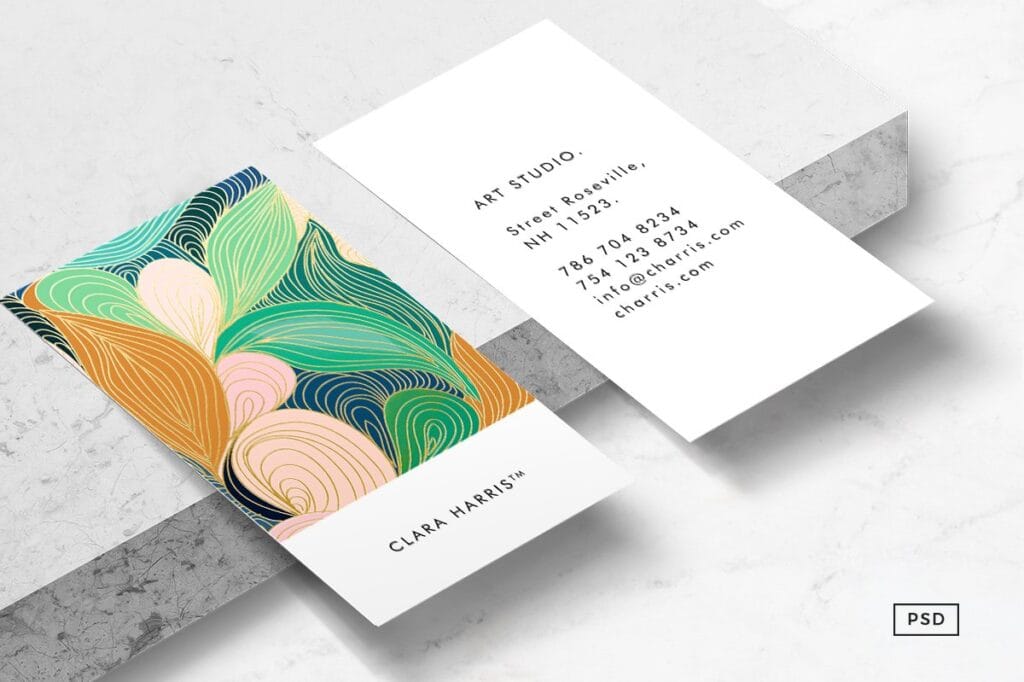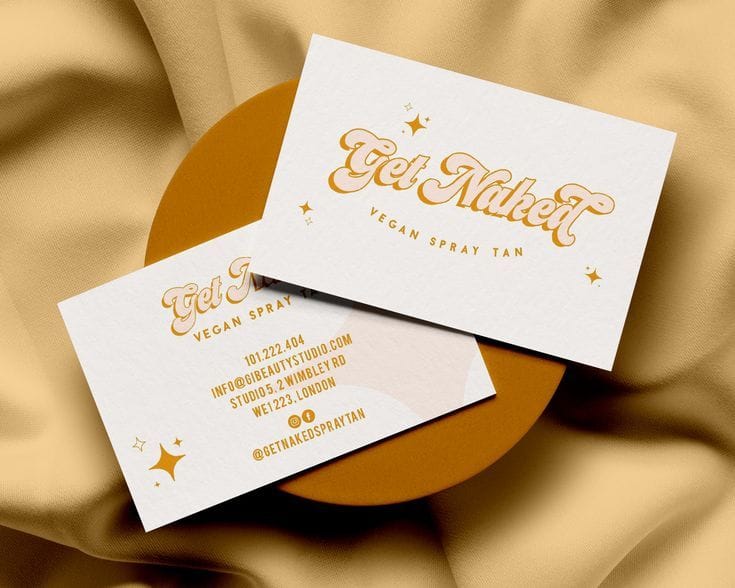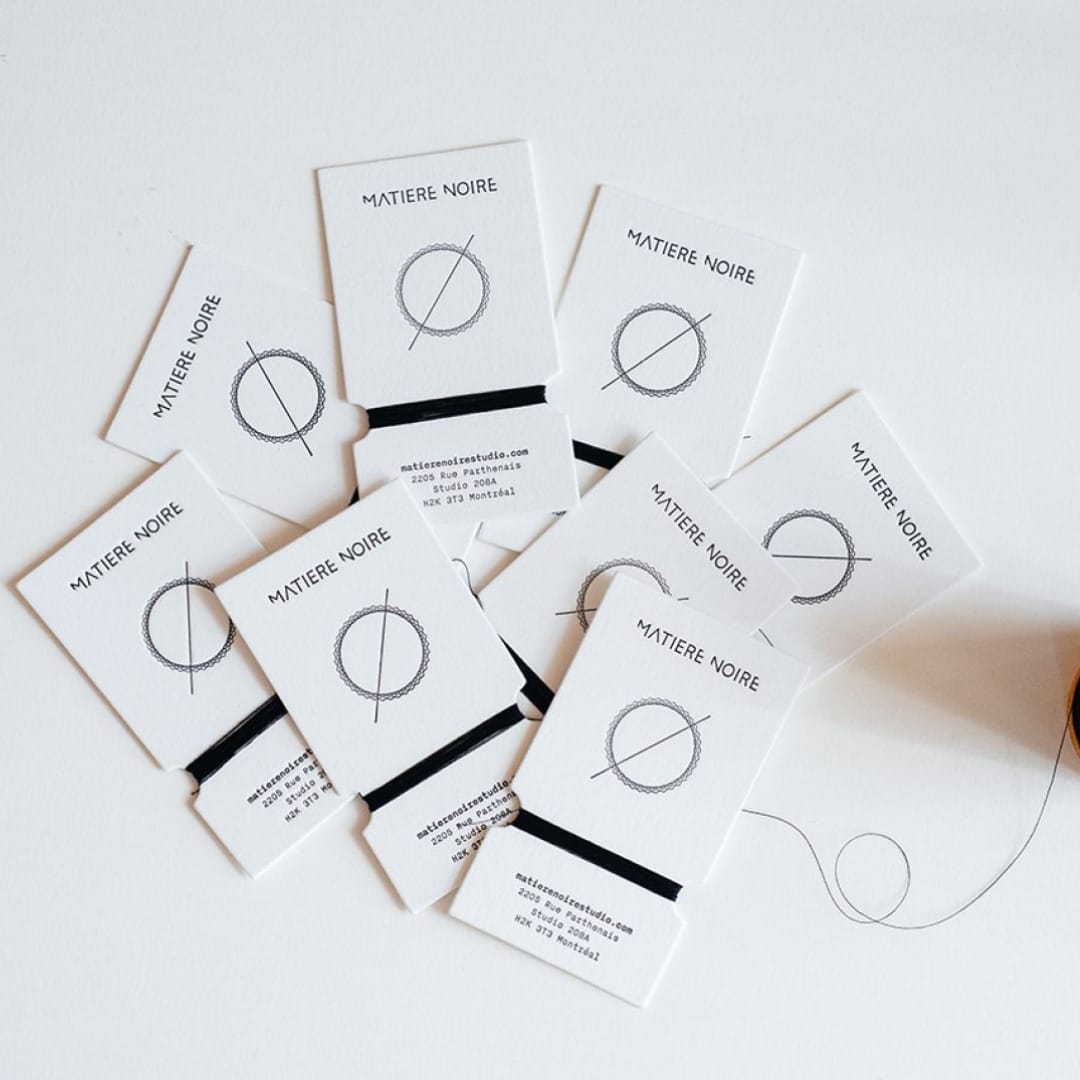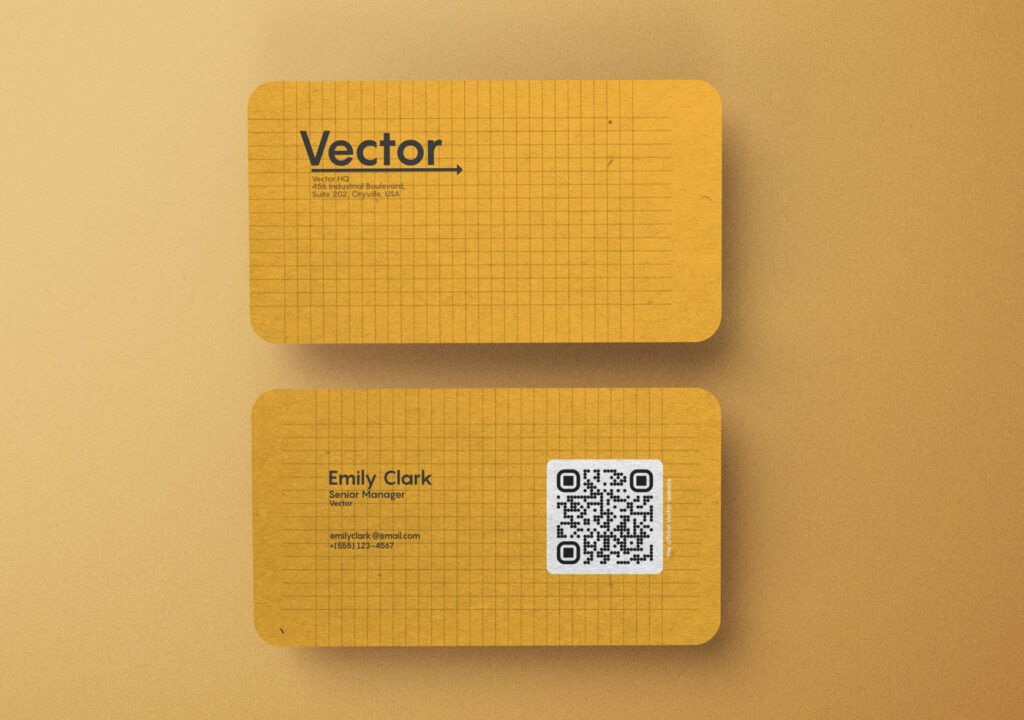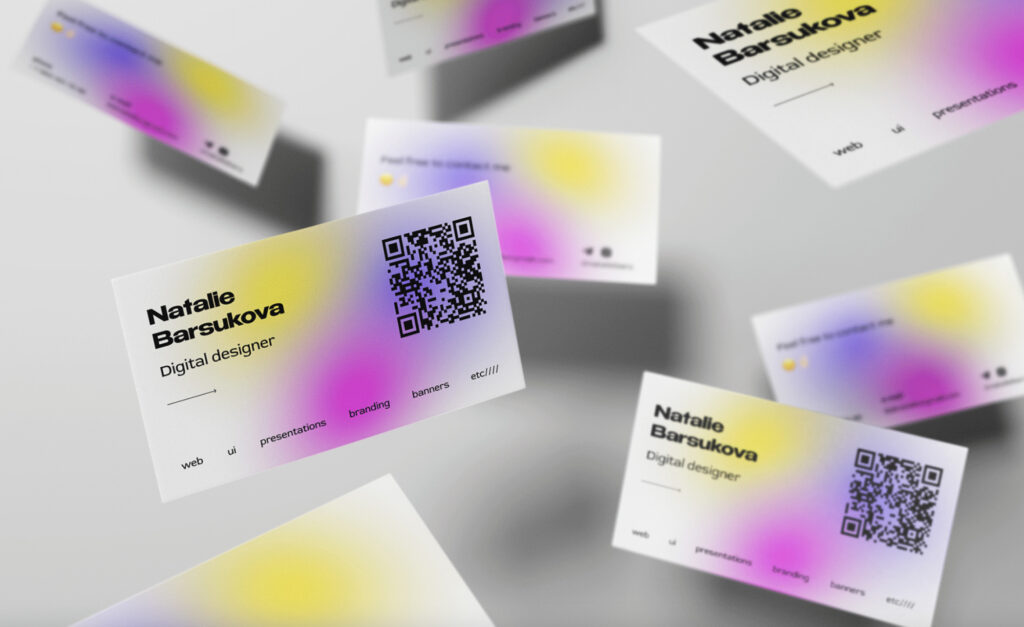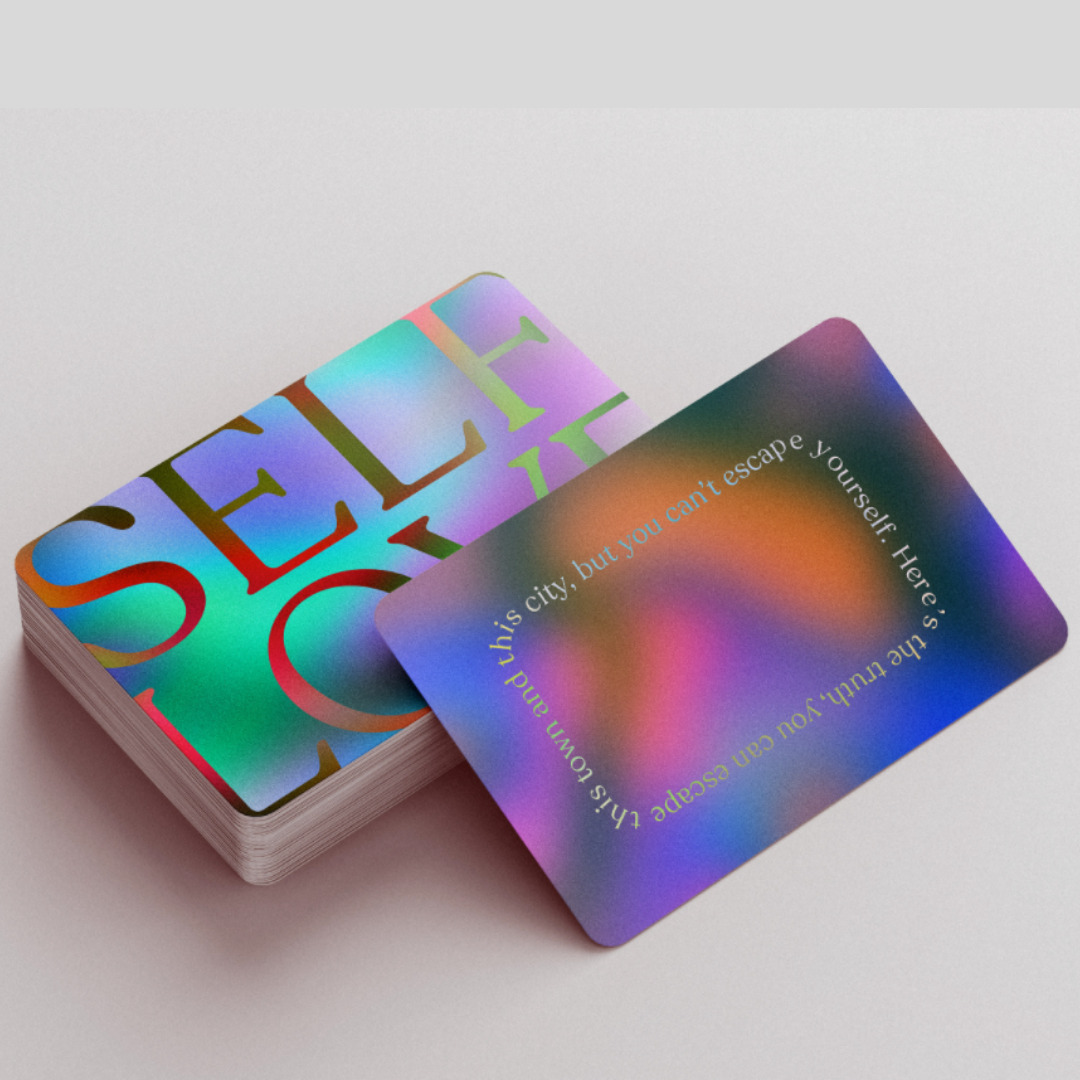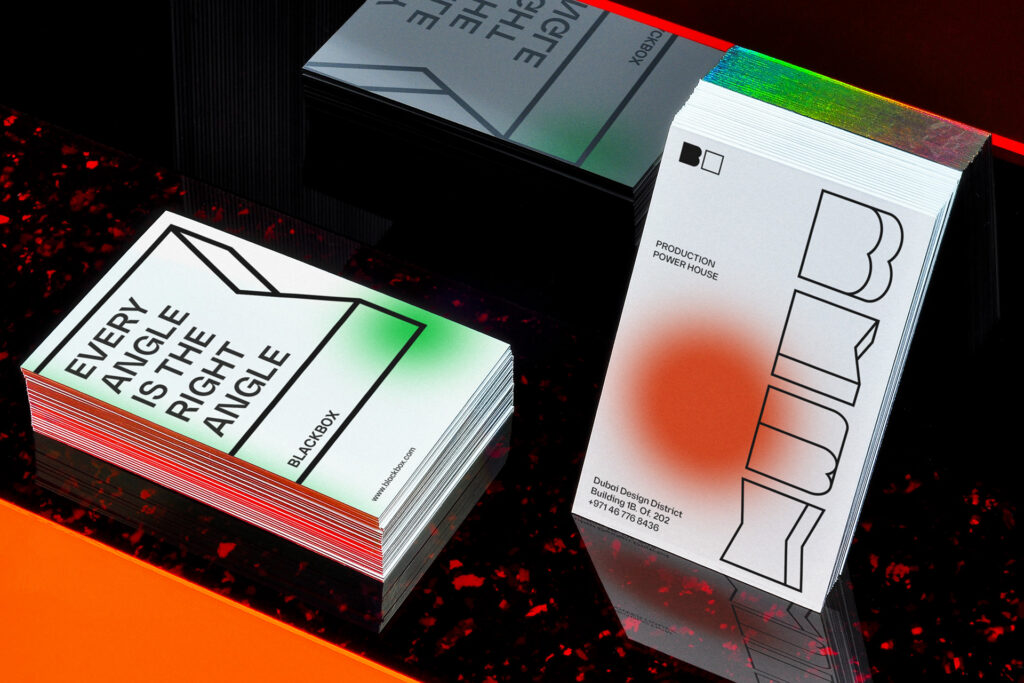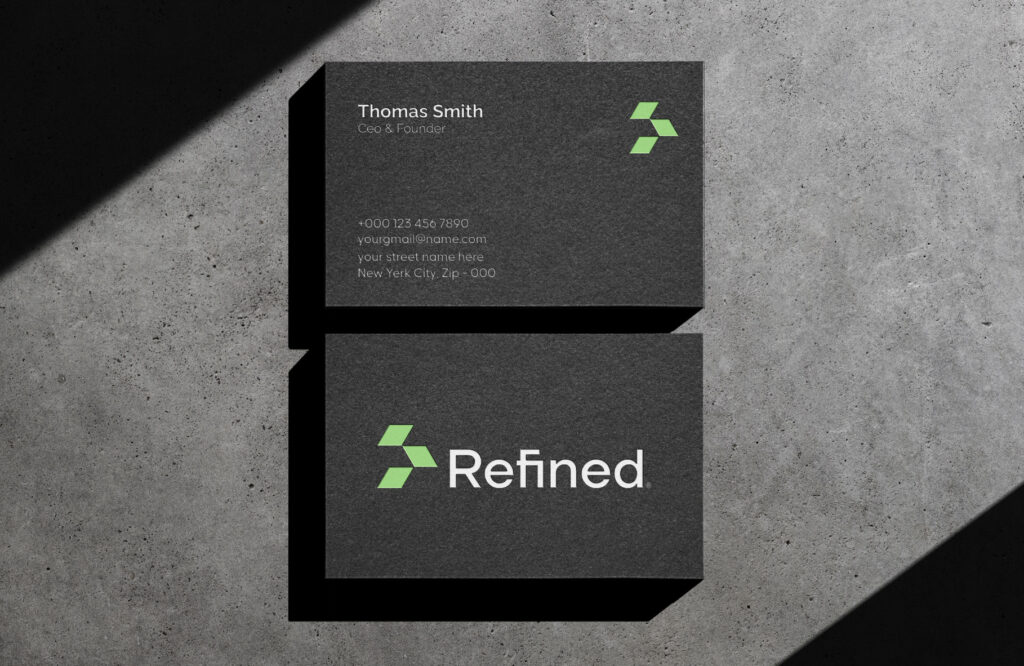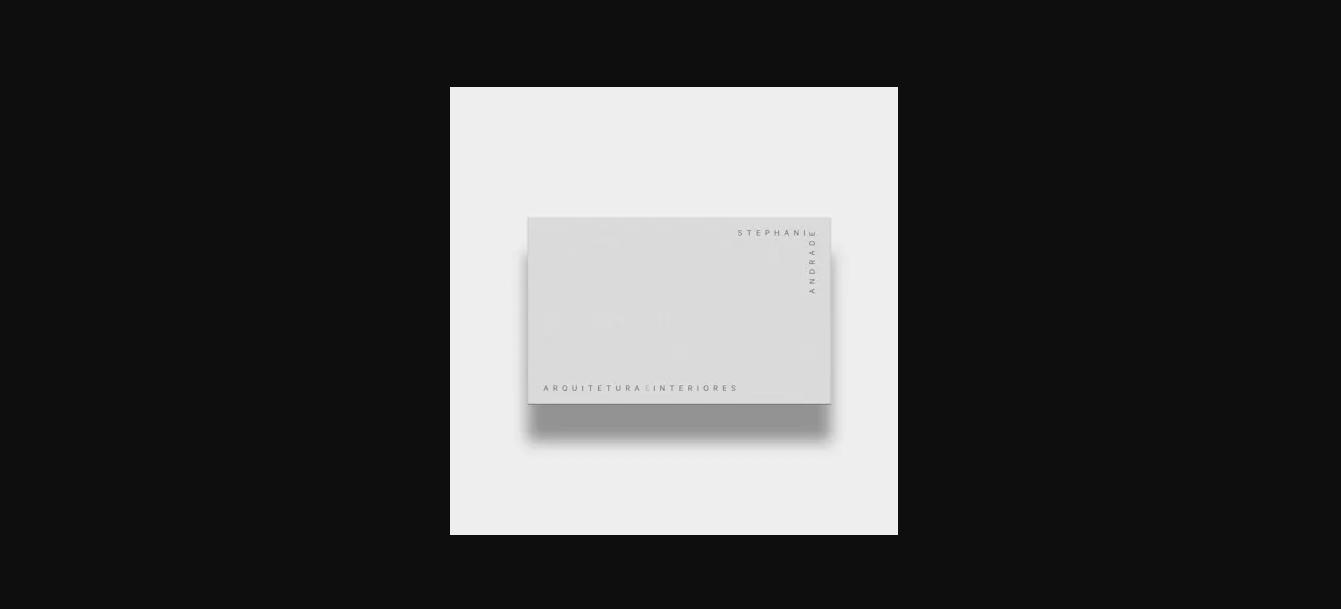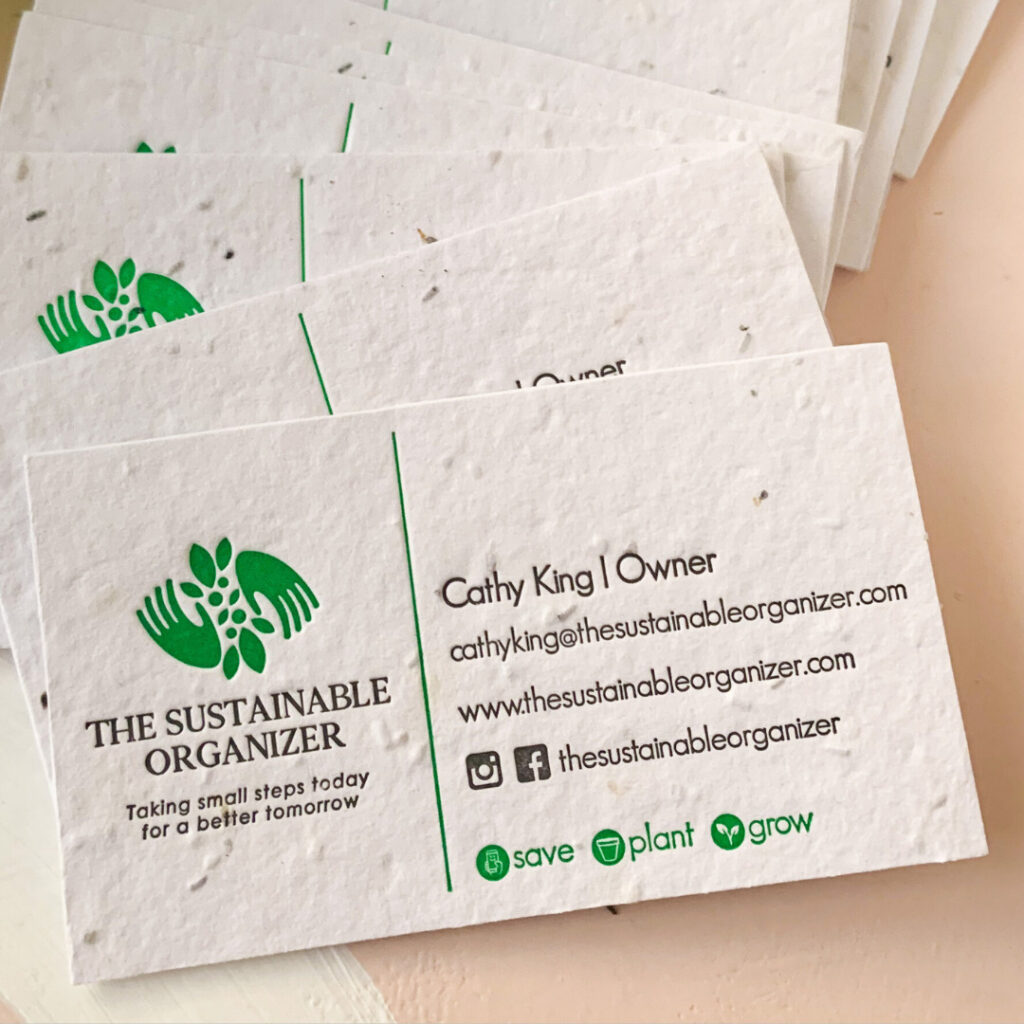
15 Current Business Card Trends in 2025
People might think that business cards are no longer in trend, but this is wrong. If done right, business cards can increase a brand’s popularity. But how to make a great impact with them? Well, you need to follow the current business card trends to make sure people remember your brand.
Since business cards are the face of your brand, it is crucial to get them right. Worry not, this article already concludes 15 current trends in business cards to make sure your brand will stay on top in 2025. Take a look closer!
15 Creative Current Business Card Trends in 2025
We can predict the trend in 2025 by observing the latest trend previously. Without further ado, let’s discuss the 15 innovative trends in the upcoming year!
1. Adding QR Codes
This first trend is essential in the digital era. Adding a QR code makes it easier for people to look up your product or portfolio online. A little bit of a suggestion is to make the QR code a part of your design, rather than just adding it randomly.
2. Shaping the Card Uniquely
Who says that business cards could only be in the shape of a rectangle? In 2025, the more unique the shape of your card is, the better it is. You can play with the shape, make it a triangle, heart, circle, or any shape you like. Even better, point plus if you match your business card shapes with your product.
3. Draw and Write Personally
Be creative in making your business cards. Adding a drawing or a handwritten note to your business cards is good because it means the cards are personalized, no one has the design aside from you. This way, you can make sure your card stands out more than others, and nothing can replicate it.
4. Inclusive Business Cards for All
Think of every type of customer you might get and how to make it accessible to them, is one of the new business card trends in 2025. People with vision disability would appreciate a business card that has braille on it. Use a safe color for people with color blindness as well, so they can understand every word on your card.
5. Use Sustainable Materials
By making cards with sustainable materials, you contribute to care for society, and it might impress people too. You can use seeded paper that can grow into plants when planted or even recycled paper.
6. Choose a Bright Color
To make your business cards more memorable, try choosing a vibrant color like neon and contrast it with a natural color such as black. The typography will stand out with neon colors and catch people’s attention. It is especially fit if your brand is part of the art, media, or fashion industry.
7. Minimalist Design
One of the current business card trends is simple yet trendy design. What is better than a minimalist design? The people who receive your cards can focus on what is written and not get distracted by something else. Just focus on your contact and promote your brand.
8. Play with Texture
Instead of using dull flat paper for your business card, consider creating cards with texture. You can make a card with a raised letter or picture. People will remember your cards since it is fun to touch.
9. Use a Distinctive Letterform
Different from the normal font in writing, a letterform is far more unique as it connects a letter to a graphic. Using a letterform means you highlight your brand and show its uniqueness. If you succeed in making a recognizable letterform in the card, people will recognize your brand easily.
10. Writing on the Edge
In 2025, the traditional business cards that have letters only in the middle of them will slowly disappear. Instead, people are free to write wherever they prefer. Be it on the edge, with left or right aligned, up or down, it does not matter. Be as creative as you can.
11. Scribble and Break the Norm
Scribble letters have been seen as unprofessional in the past. It is different in 2025. Scribbling is now a positive thing, it shows how your brand is modern and not scared to break the norm and be rebellious. Clients will love how personalized your card design is.
12. Give a Discount